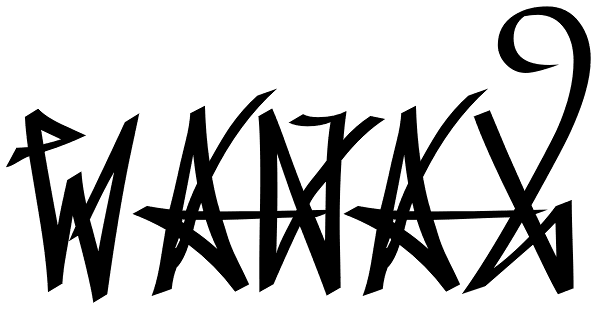
Wanax
Wanax is an original calligraphic font by Dave Nalle. It is a unique, freehand style, where each character is drawn in a single stroke without ever lifting the pen from the page. This gives it an unusual convoluted look rather reminiscent of an...